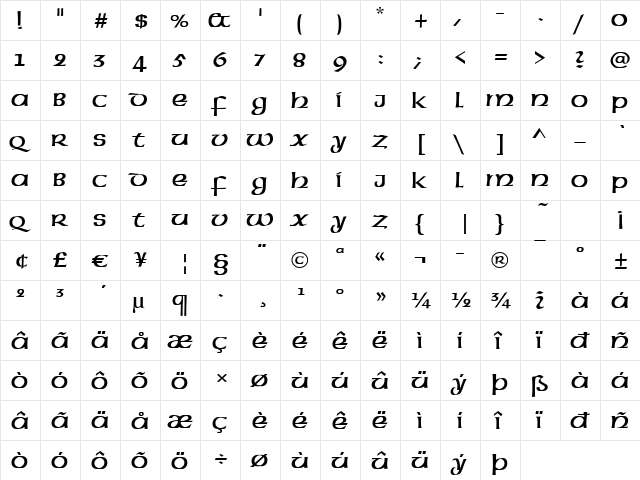
Uncial Regular
Design Context for Uncial Typeface
Uncial takes a measured approach to typography — its balanced proportions and neutral character make it a reliable workhorse for both digital and print work.